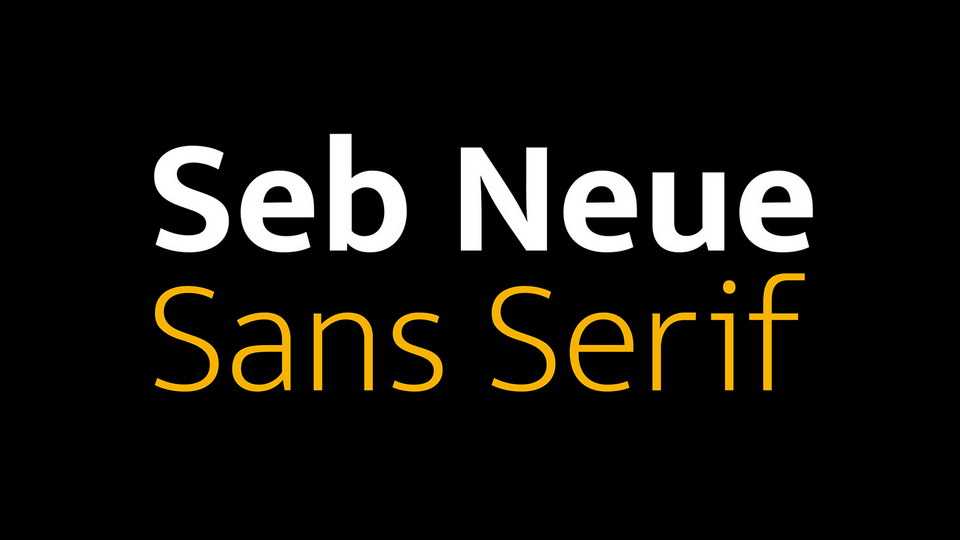
Download Seb Neue typeface, a modern sans serif font family in 12 weights. Seb Neue works great both for text and titles. Range of weights make it a very versatile typeface for your designs.
Designer: Tapiwanashe Sebastian Garikayi